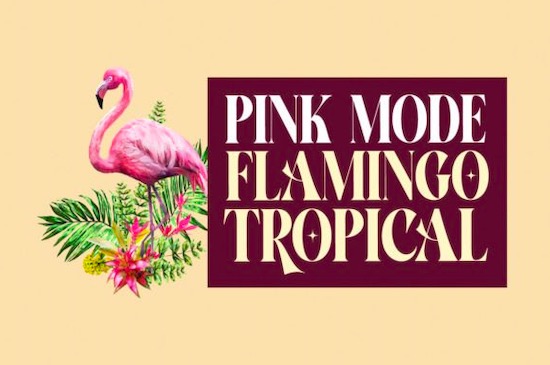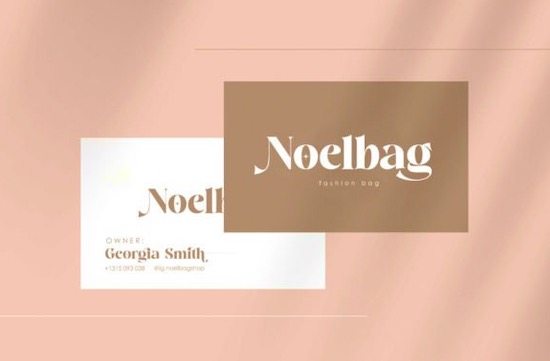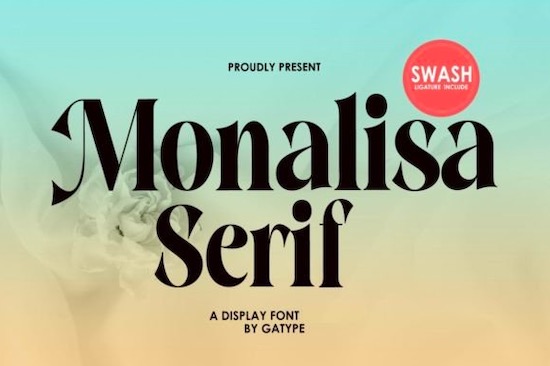
Monalisa Font
Monalisa is a vintage & modern serif display font that was published by Gatype along with delicate ligatures, and multilingual support. It’s perfect for many creative designs such as personal branding, product packaging, clothing branding, wedding invitations, posters, magazine headers, logos, and more.